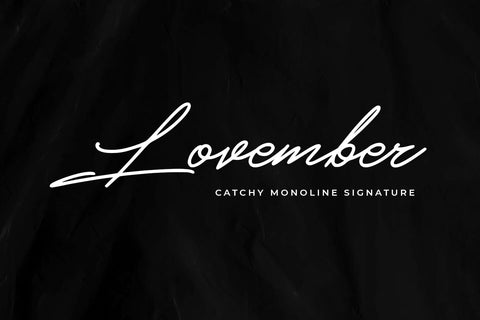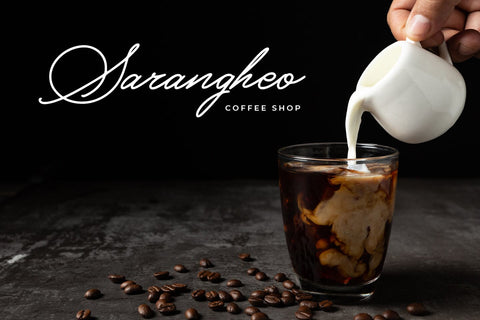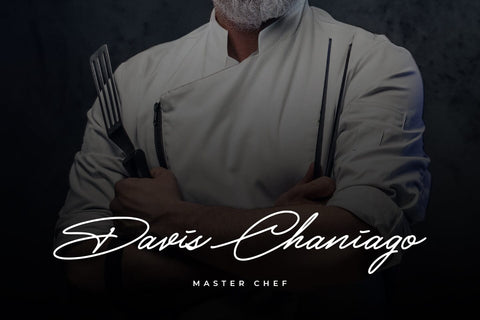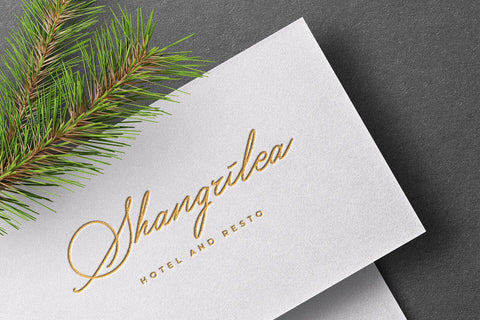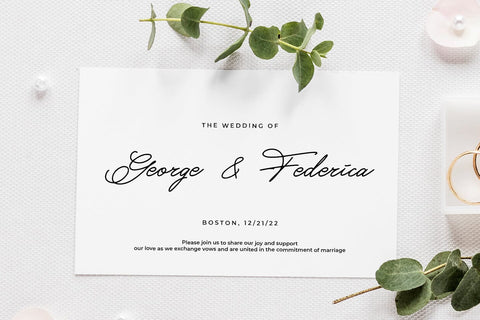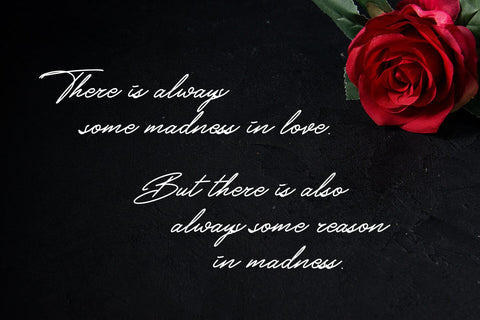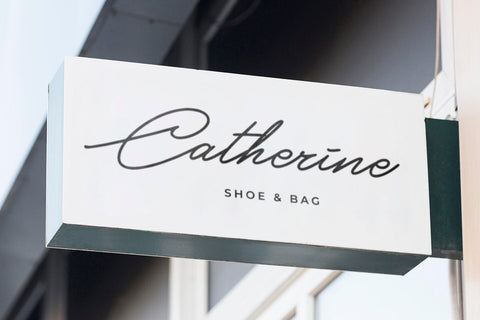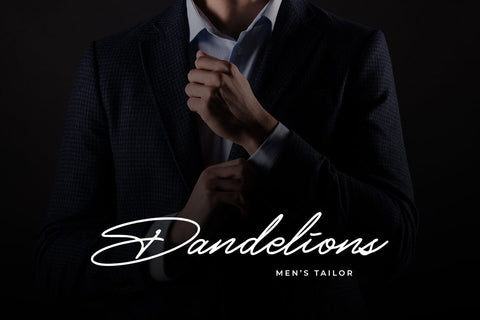
Lovember
introducing
LOVEMBER
- catchy monoline signature font -
LOVEMBER is natural signature font in monoline style.
It is great for branding, logos, t-shirt designs, tote bag designs, cards, banners, social media, and more.